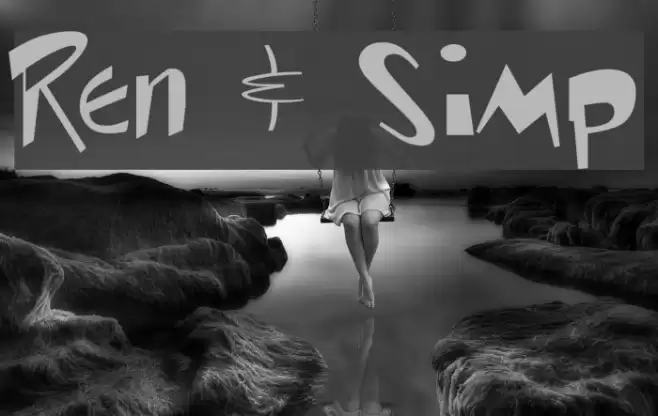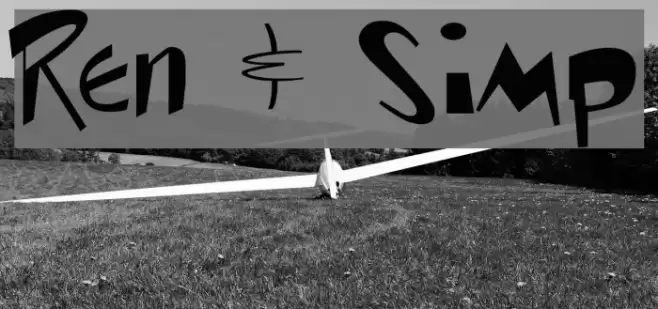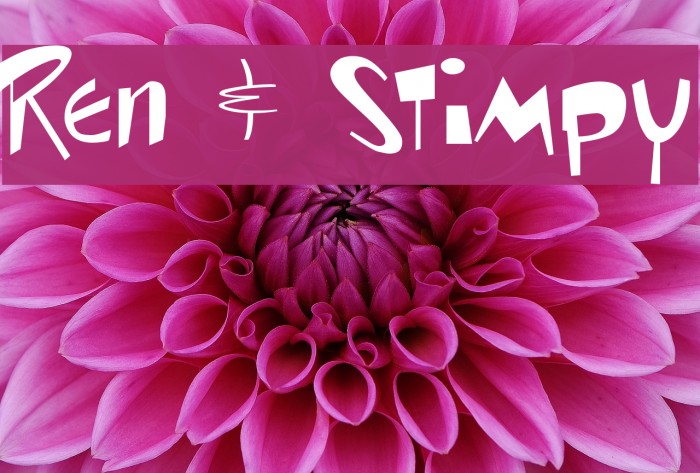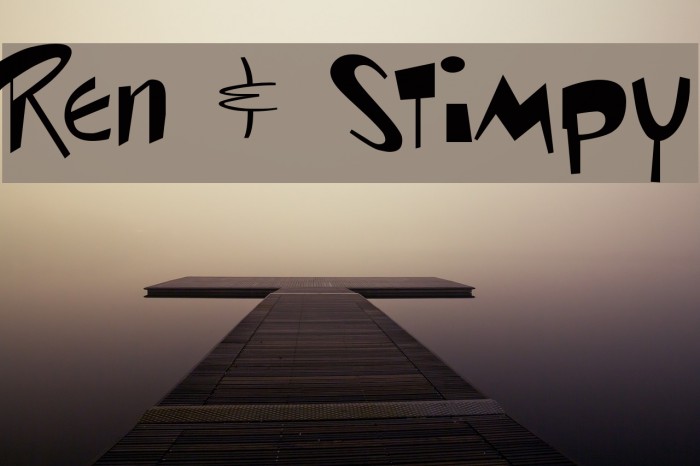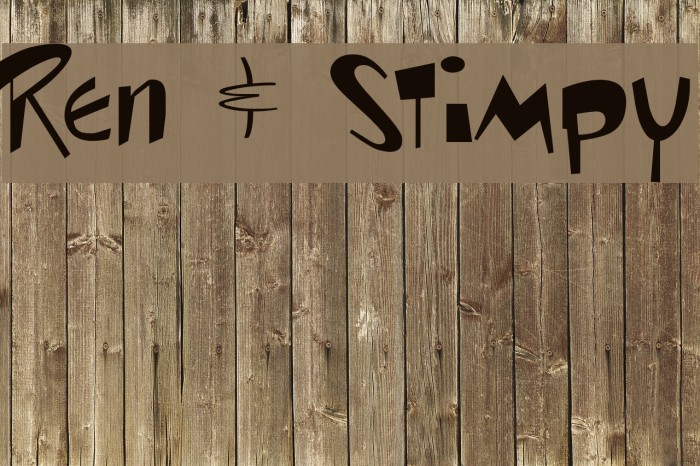
Ren & Stimpy Font
Ren & Stimpy Description
This font features a playful and quirky design, characterized by its irregular and exaggerated letterforms. The uppercase and lowercase letters exhibit a mix of sharp angles and rounded edges, creating a dynamic and energetic appearance. The numbers and special characters maintain this whimsical style, adding to the overall fun and informal vibe. The font's unique personality makes it stand out, with each character having its own distinct flair. It's perfect for projects that require a touch of humor and creativity.
A playful and quirky font with irregular, exaggerated letterforms from Quirky fonts.
- Proposed Projects: Ideal for children's books, comic strips, playful branding, and creative posters.